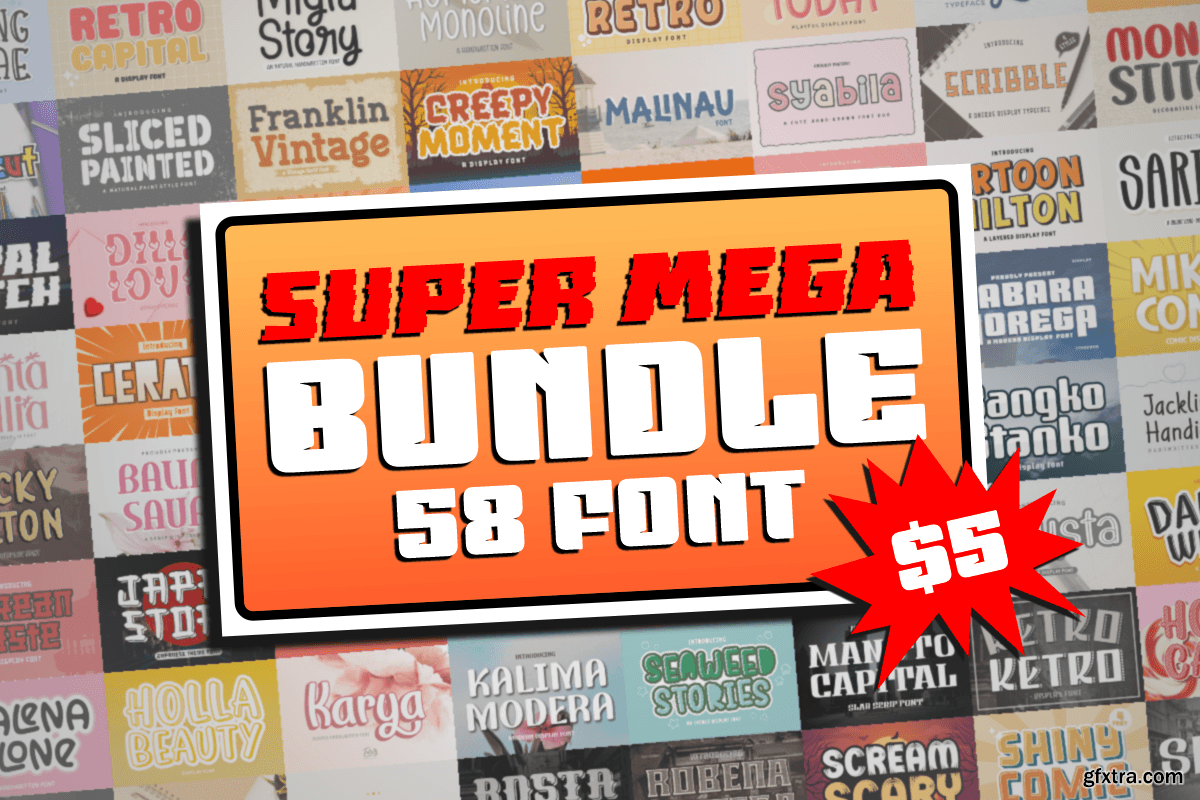
Super Mega Font Bundle
This bundle gathers 58 font typefaces, beautifully designed and fun! In this bundle, you’ll find a unique combination of modern and classic fun styles to create the perfect lettering. Give your designs a unique and fun feel as each font has its own magical design. You can use it for almost anything like blog headers, posters, t-shirts, clothing, book covers, business cards, greeting cards, branding, invitations, magazines and quotes, and much more.